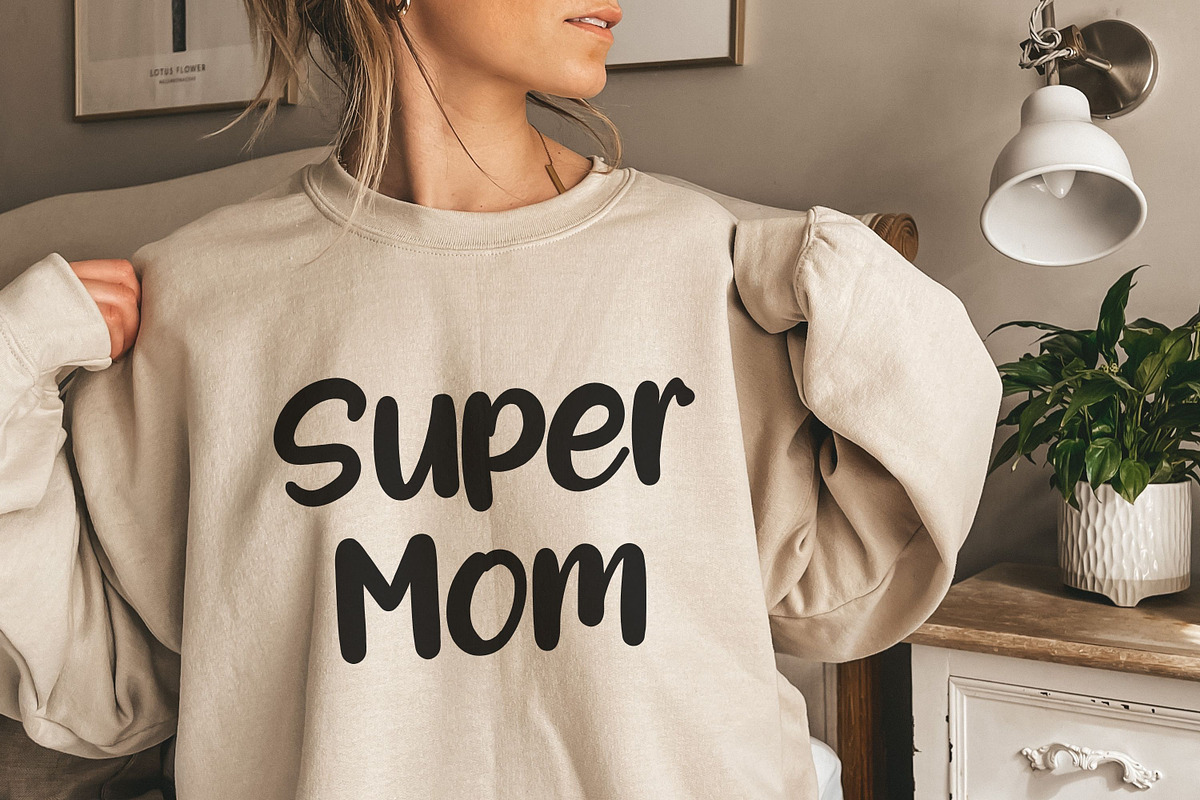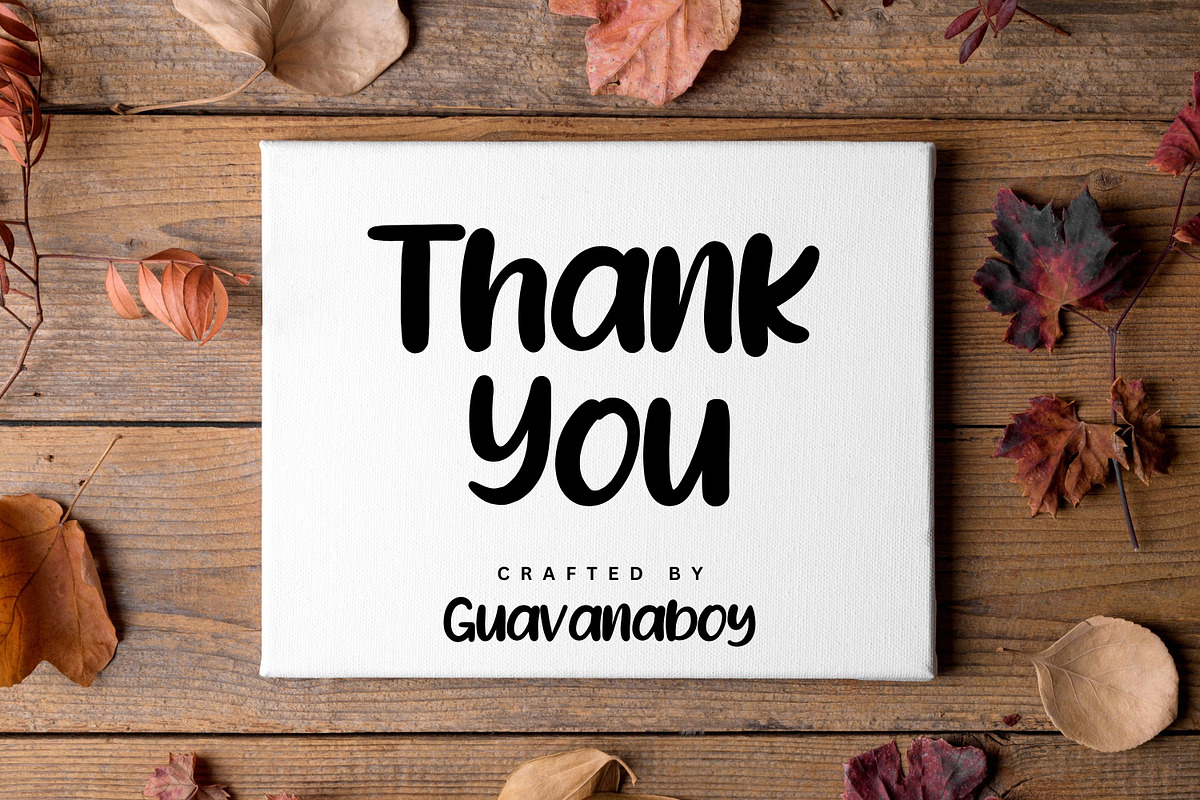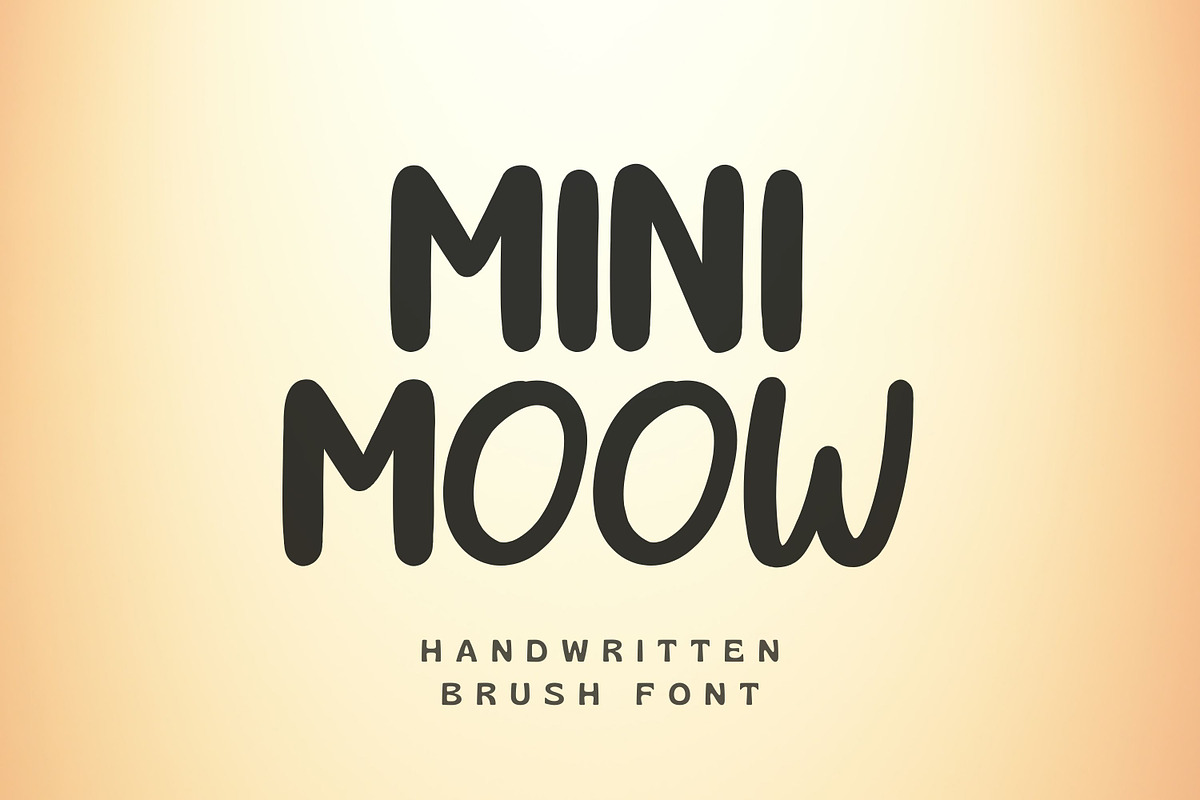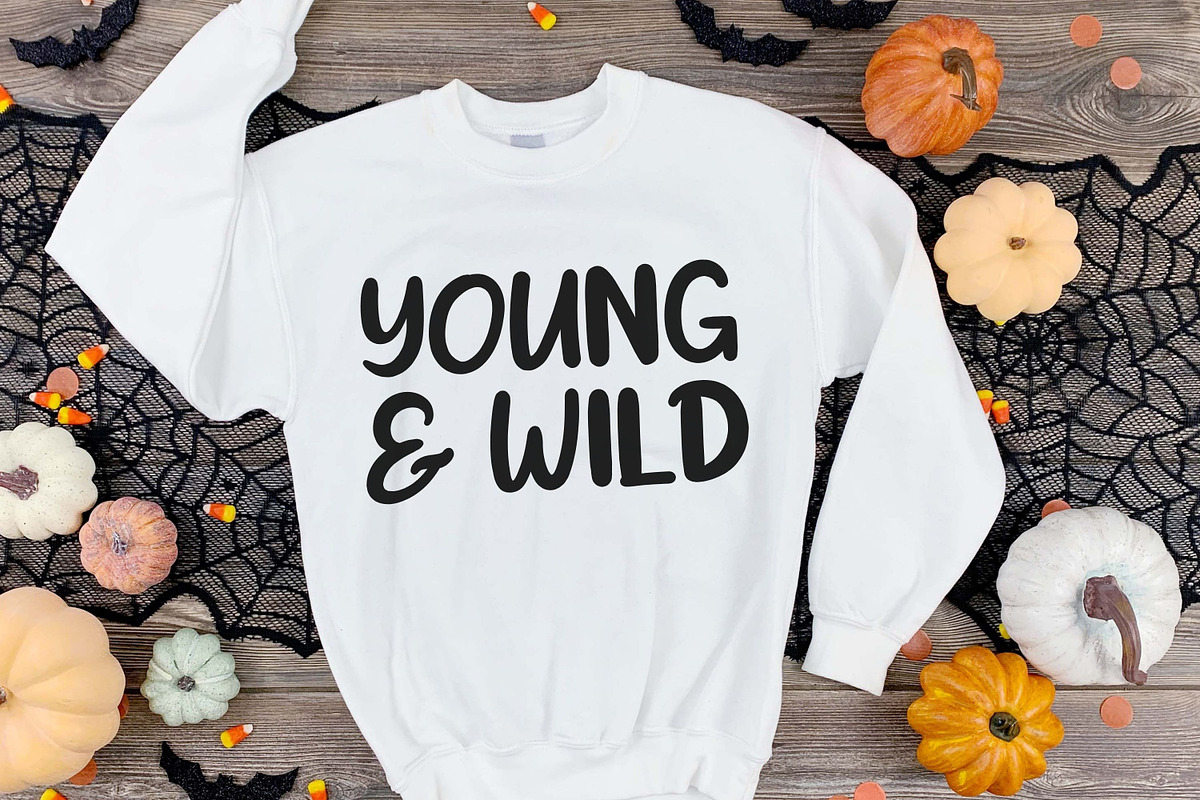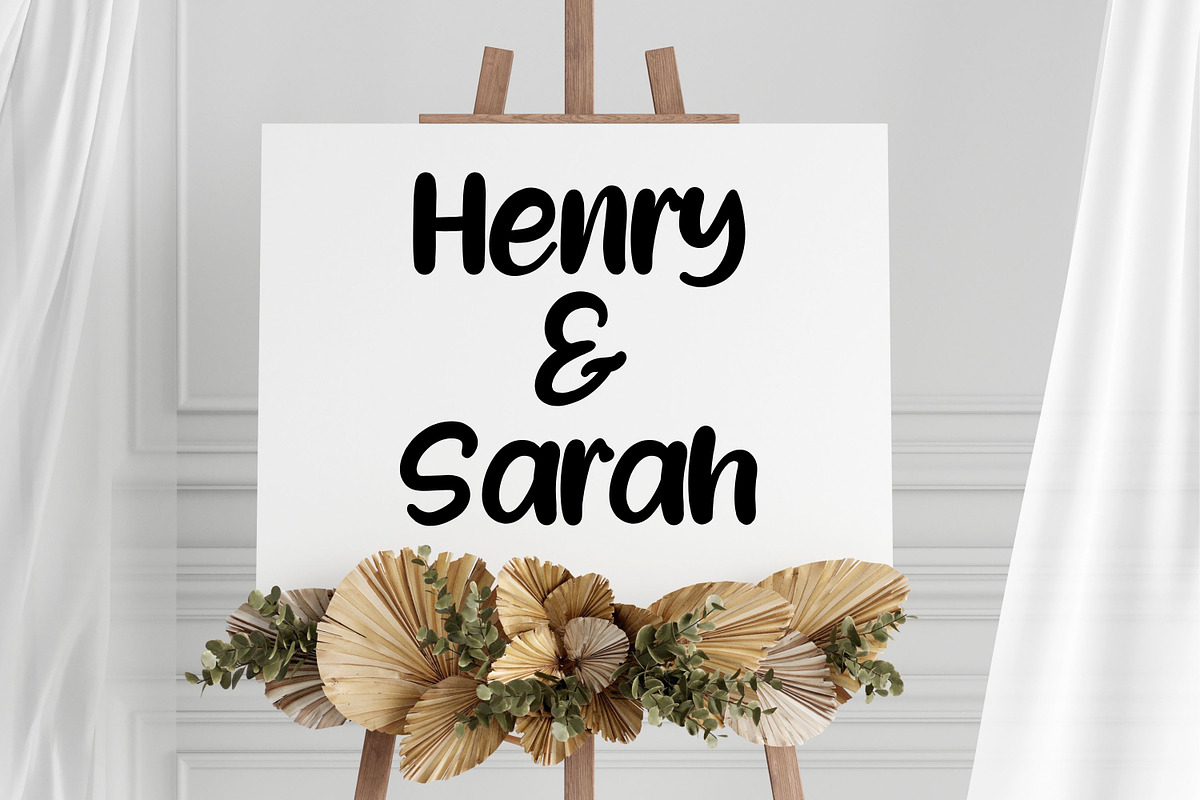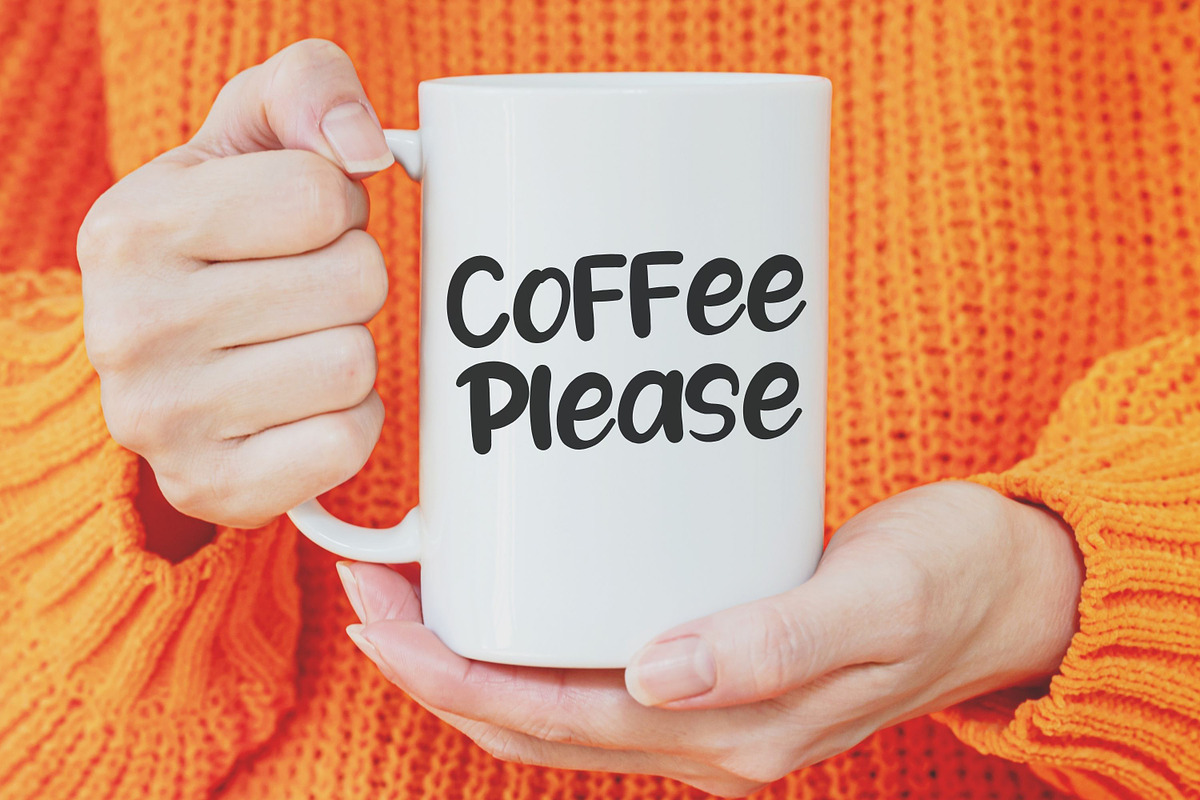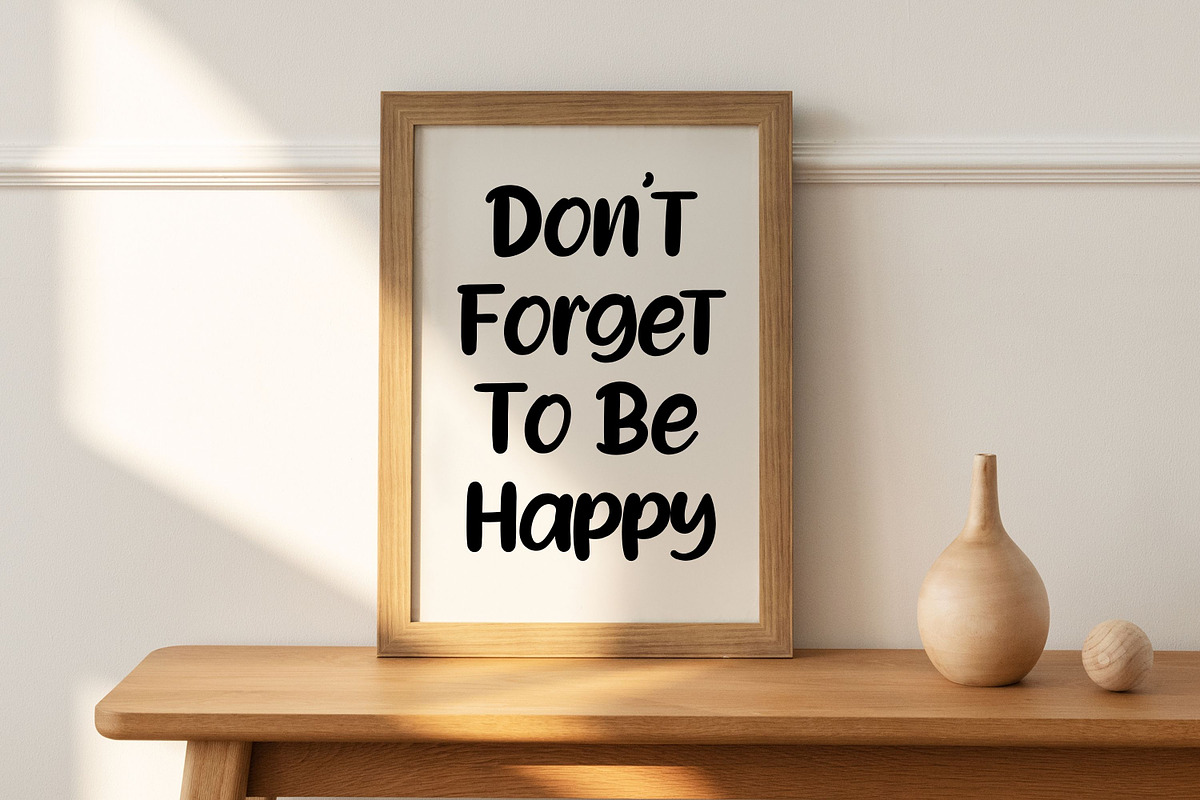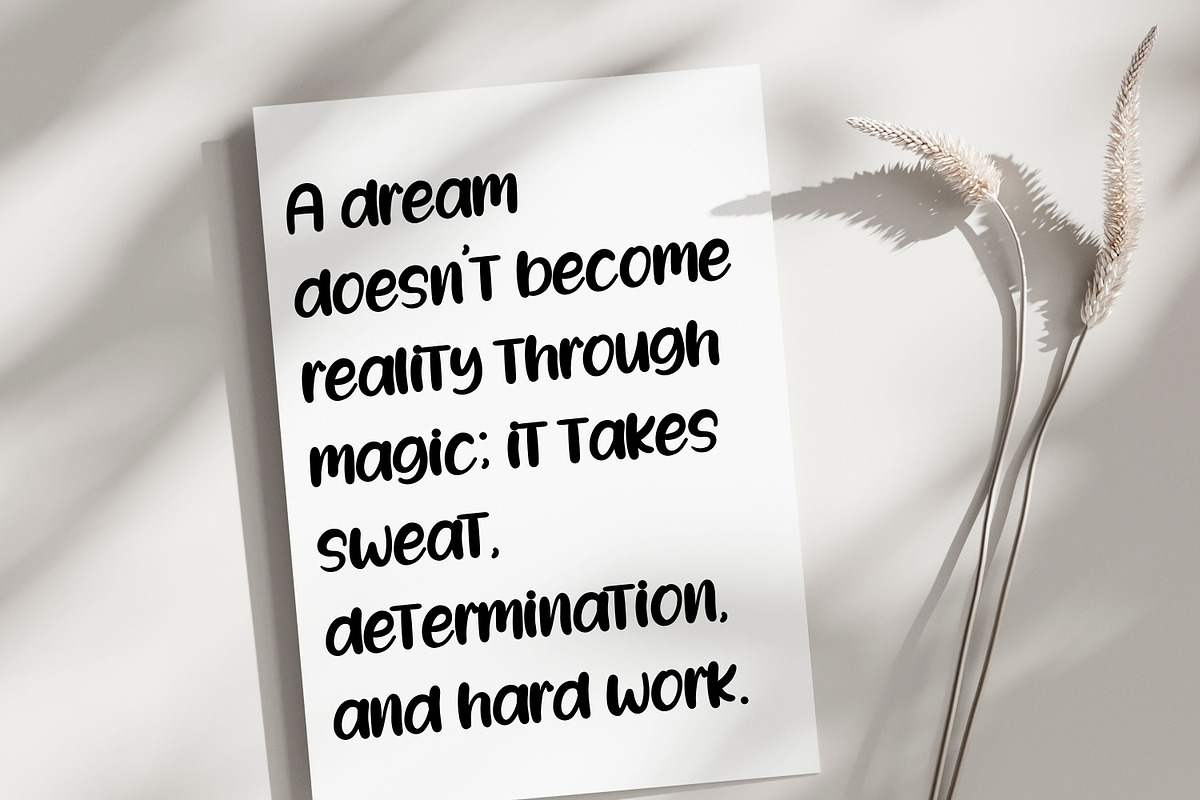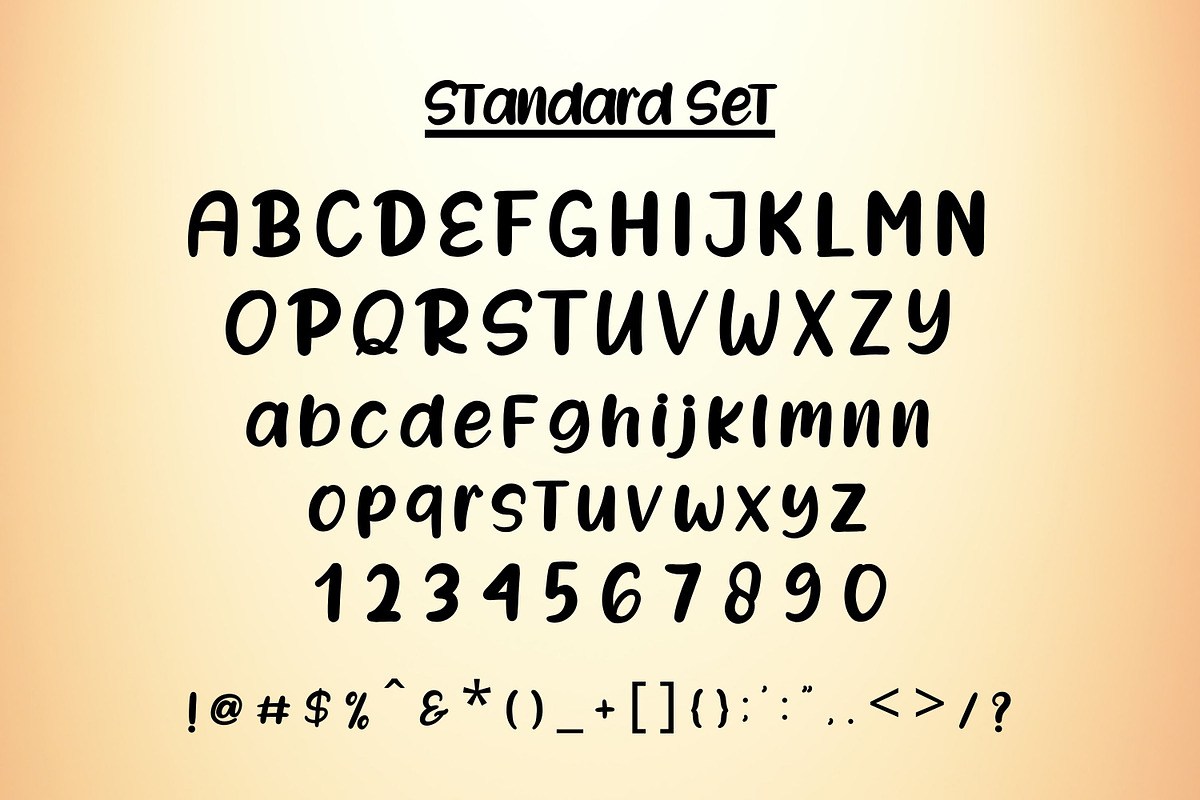
Mini Moow Fun Instagram Brush Font
Mini Moow Font - A Fun Brush font - by Guavanaboy.
Perfect for : Social media, Advertisement, Instagram, Logos, branding, wedding invitations, Canva, signs, crafting, mugs, shirts, labels, stickers, business cards, greeting cards, posters, social media, planner prints, and websites.